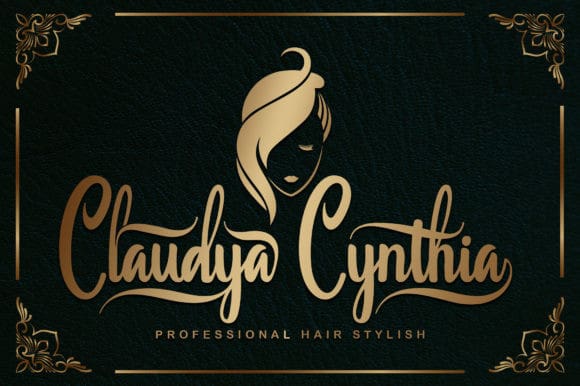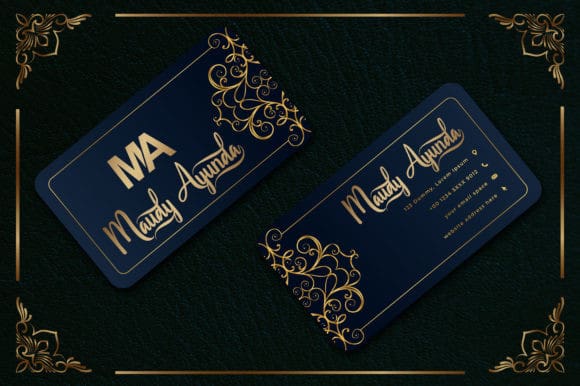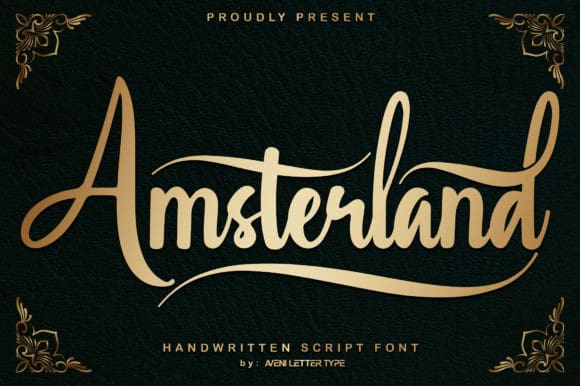
Amsterlands Script Font
Amsterlands Script Font is a handwritten script font that uses very neat kerning. It has a classy, elegant, and modern look that can be used for logos, branding, cosmetic tube, design flyer, business card, invitations, stationery, wedding designs, social media posts, and much more!